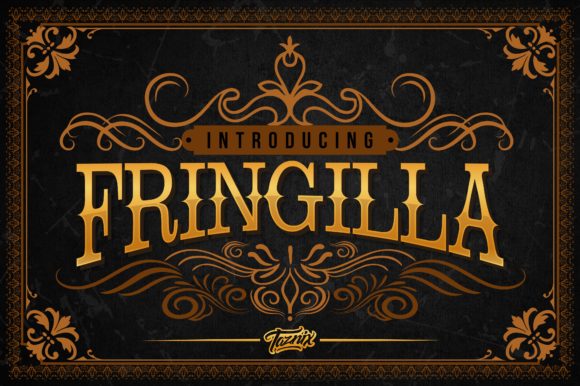
Introducing Fringilla Font - A Regal Serif with Blackletter Elegance
Embrace the grandeur of Fringilla Font, a serif masterpiece that harmonizes classic elegance with a dash of blackletter charm. This captivating typeface is not just a font; it's a statement of style and sophistication, ready to elevate your creative projects to new heights.
Unleash the Power of Expression with Fringilla
With Fringilla Font as your creative companion, you hold the key to unlocking a world of expressive possibilities. Design breathtaking logos that command attention, create stunning posters that ignite emotions, or craft elegant invitations that exude timeless charm. Whether you're a seasoned designer or just starting your creative journey, Fringilla's allure will captivate your audience and leave a lasting impression.
A Fusion of Timeless Beauty and Modern Allure
Fringilla Font masterfully blends the timeless appeal of serif typography with the intrigue of blackletter details. Its delicate serifs and sweeping curves evoke a sense of heritage and tradition, while the blackletter influences add a touch of intrigue and mystery. Together, they create a visual symphony that dances across your designs, captivating the eyes and igniting imaginations.
Make Your Words Dance with Grace and Elegance
With Fringilla Font, your words will transcend mere text and transform into artistic expressions. Its graceful curves and elegant linework will breathe life into your designs, making every letter a work of art. Experience the joy of crafting headlines that demand attention, body copy that flows effortlessly, and quotes that resonate with beauty and meaning.
A Font that Inspires Creativity and Ignites Passion
Fringilla Font is more than just a font; it's a muse, a spark that ignites your creative fire. Its versatility knows no bounds, adaptable to a myriad of design projects. From branding and marketing materials to website designs and social media graphics, Fringilla Font will elevate your creations and leave your audience spellbound. Embrace its allure and watch your creativity soar to new heights.